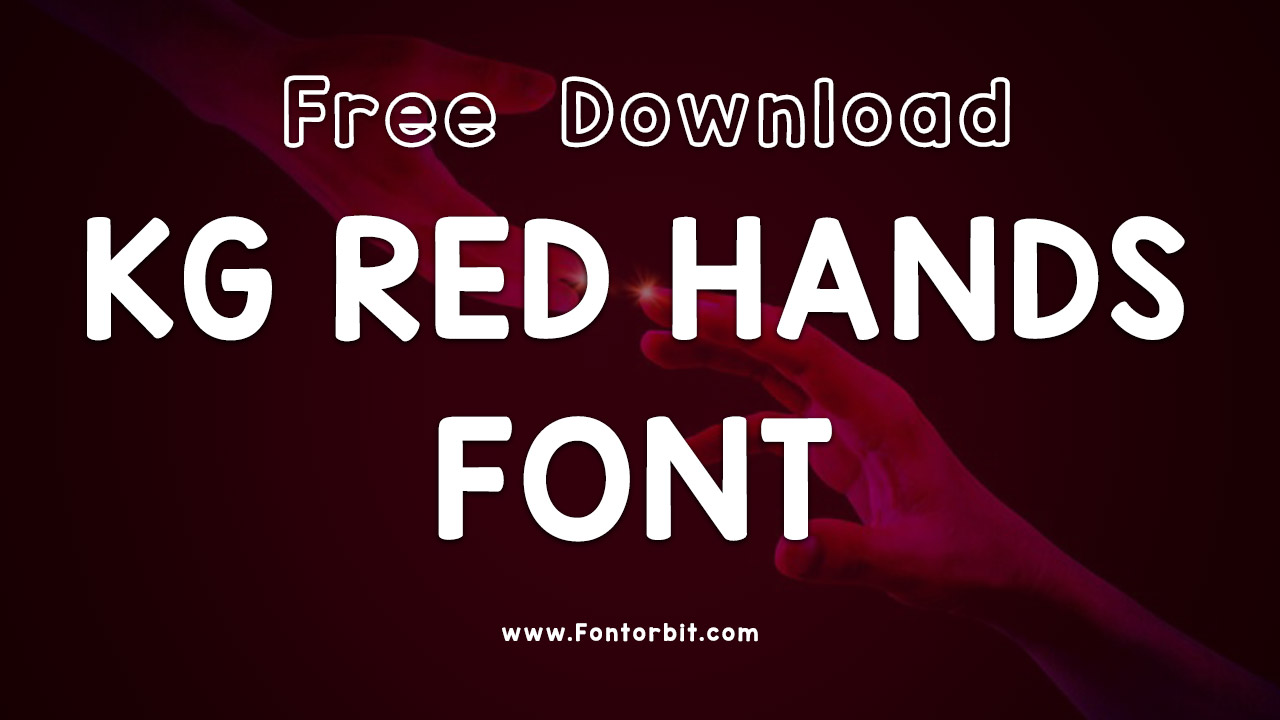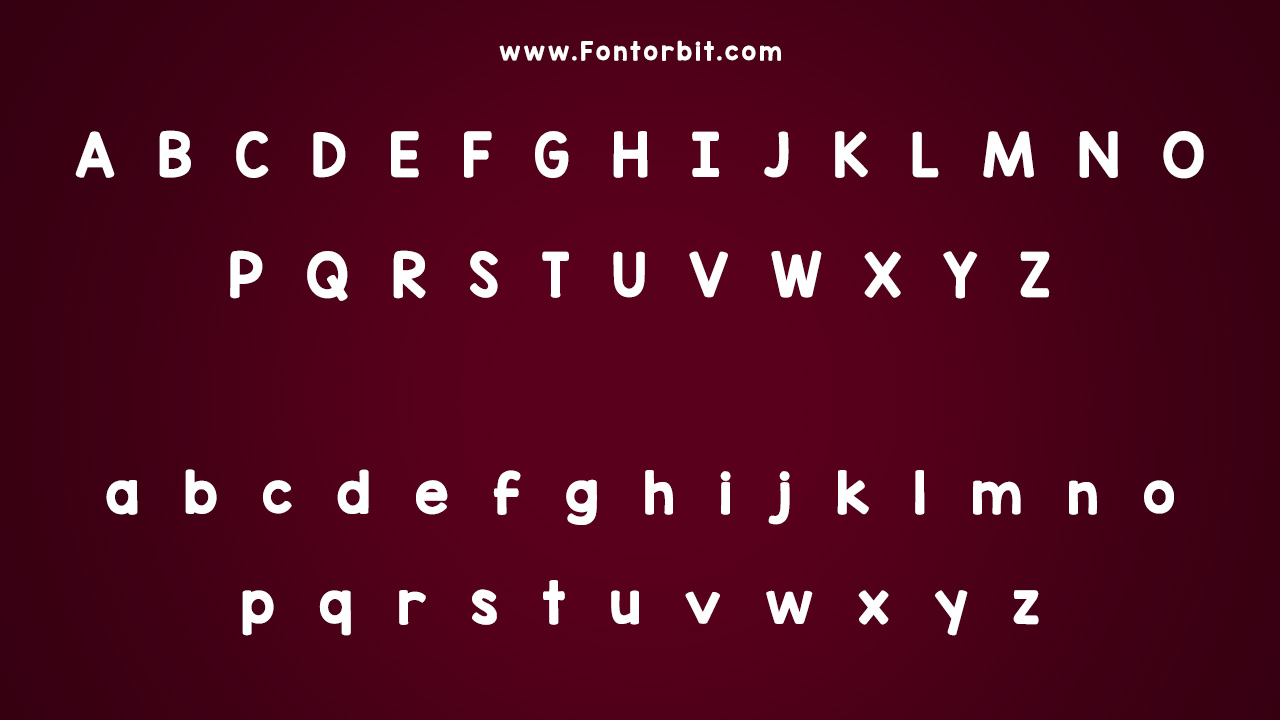
KG Red Hands Font is a charming and whimsical typeface designed by Kimberly Geswein. With its playful and rounded design, this font brings a delightful personality to any project.
The KG Red Hands Font Family Includes
KG Red Hands Font stands out with its bold, rounded edges and organic lines that create a lively, engaging appearance. The font family includes:
a. KG Red Hands Regular
b. KG Red Hands Outline
KG Red Hands Font Found in Use
You’ll often find KG Red Hands Font in designs that aim to capture attention with a playful and engaging touch. Its cheerful and approachable nature makes it a great choice for:
- Kids’ birthday parties
- Fun educational content
- Community events
- Creative branding
- Eye-catching social media posts
KG Red Hands Font infuses a sense of fun and whimsy into any design project. Its rounded, bold design makes it perfect for titles, invitations, and materials for a younger or playful audience.
It pairs well with simpler, modern typefaces for a balanced and engaging look, making it a versatile choice for various creative applications.
1.Is KG Red Hands Font Suitable For Long Paragraphs Of Text?
KG Red Hands Font is best used for headings, titles, or short pieces of text. Due to its distinctive style, its playful design may be less effective for extended text.
2.How Does KG Red Hands Font Differ From Other Whimsical Fonts?
KG Red Hands Font features clean, rounded corners and a bold, easy-to-read design that stands out with a fun, approachable feel. Its organic lines and playful style set it apart from other whimsical fonts.
3.What Are The Most Common Uses For KG Red Hands Font?
A: KG Red Hands Font is often used for children’s materials, event invitations, social media graphics, and other designs that need fun and personality.
4.What Design Principles Does KG Red Hands Font Follow?
KG Red Hands Font emphasizes playful creativity and legibility. Its rounded, bold appearance adds a sense of whimsy and engagement to designs.
5.What Colors Complement KG Red Hands Font?
KG Red Hands Font works best with bright, vibrant colors highlighting its playful and cheerful nature. Contrasting colors will help the font stand out in various designs.